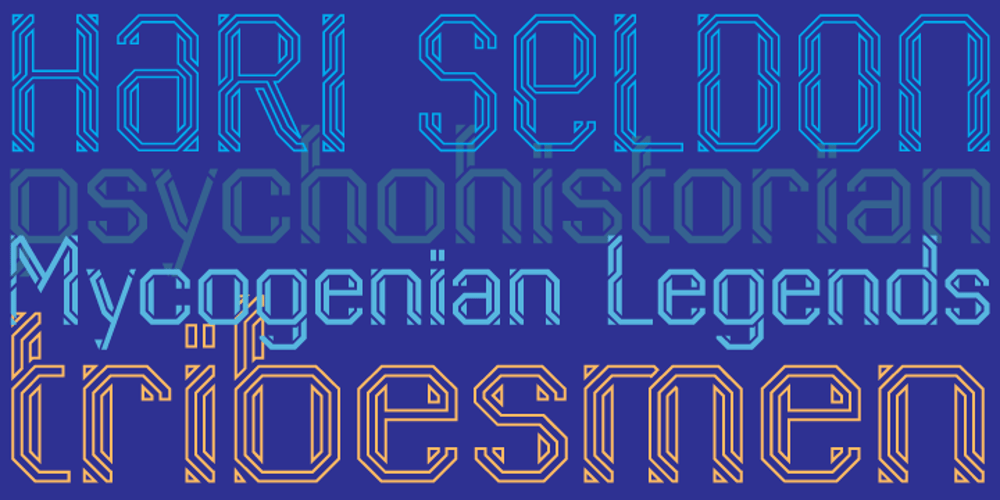
Naga
Naga font
Naga Font Family was designed by Hans van Maanen and published by Canada Type. Naga contains 2 styles and family package options. Naga is Hans van Maanen’s original creation of art deco shapes interected with intricate mazes of what could be Celtic or Mesoamerican knotwork art. The totality of the typeface borders on the mysterious, exotic and yet clearly discernible as far as readability is concerned. Naga comes with a companion outline style that emphasizes its intricacy. Both fonts hold up quite strongly when combined with photo/illustration masks. The Naga family comes in both OTF and TTF formats, and includes an extended range of characters covering most Latin-based languages. A few unicase forms are also included.